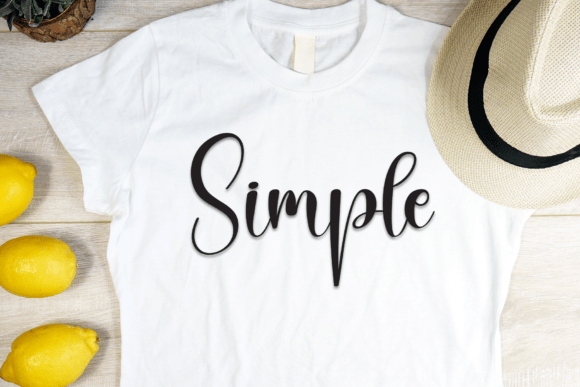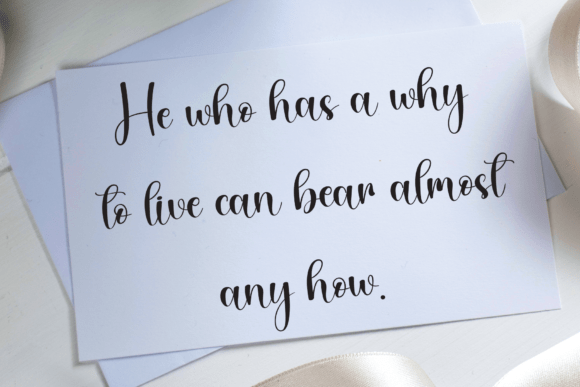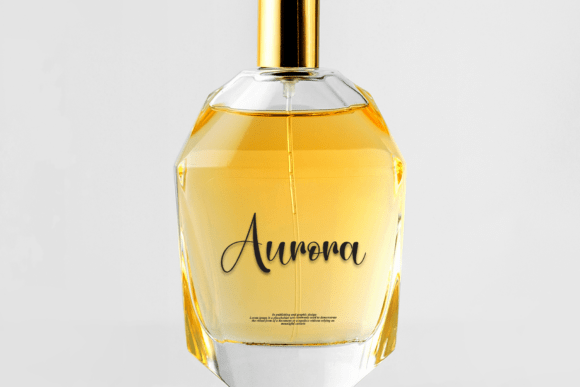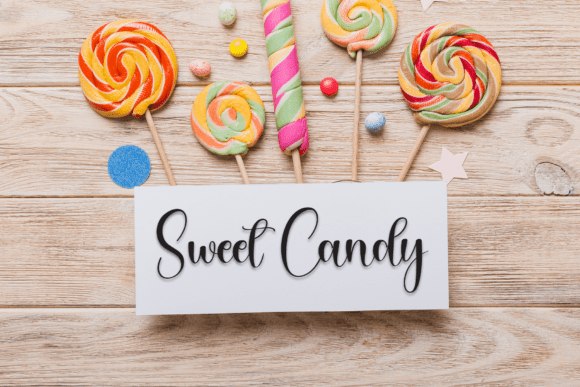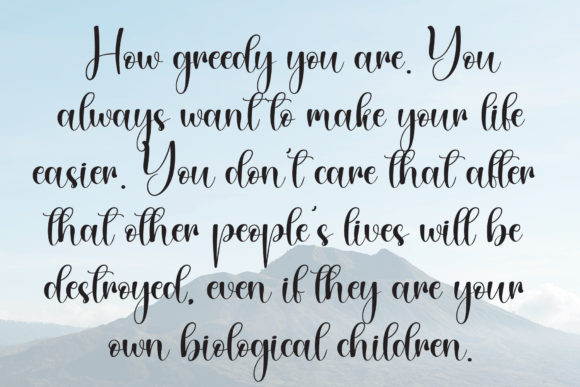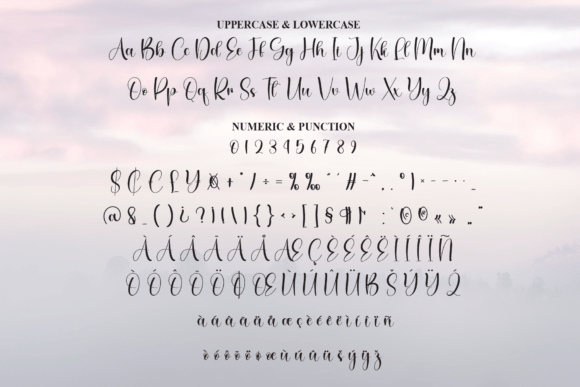
Discover the Enchanting Font: Elevate Your Designs with Elegance and Playfulness
Are you searching for a font that can add a touch of sophistication and whimsy to your designs? Look no further than the Enchanting Font, a stylish handwritten script font that seamlessly blends modern elegance with a playful touch. This versatile typeface is perfect for designers and crafters looking to bring a personal feel to their projects, whether it’s a logo, packaging, invitation, or any other creative endeavor.
The Characteristics of Enchanting Font
The Enchanting Font boasts fluid strokes and charming curves that give it a unique and captivating appearance. Its modern elegance is balanced by a playful touch, making it an ideal choice for a wide range of design applications. The font’s smooth lines and rounded edges create a sense of warmth and approachability, while its sophisticated style ensures that it remains suitable for more formal projects.
One of the key benefits of the Enchanting Font is its versatility. Its elegant and playful style makes it perfect for a variety of design applications, including:
- Logos: Create a lasting impression with a custom logo that showcases your brand’s personality and style.
- Packaging: Add a touch of sophistication and whimsy to your product packaging and make it stand out on store shelves.
- Invitations: Create beautiful and elegant invitations for weddings, parties, and other special events.
- Signage: Use the Enchanting Font to create eye-catching signs and displays that grab attention and leave a lasting impression.
Why Choose the Enchanting Font?
So why choose the Enchanting Font over other typefaces? Here are just a few reasons:
- Unique and Captivating: The Enchanting Font’s fluid strokes and charming curves make it a unique and captivating addition to any design.
- Versatile: Its elegant and playful style makes it perfect for a wide range of design applications.
- Easy to Read: The font’s smooth lines and rounded edges make it easy to read, even at small sizes.
- Customizable: The Enchanting Font can be easily customized to fit your brand’s style and personality.
Tips for Using the Enchanting Font
Here are a few tips for getting the most out of the Enchanting Font:
- Pair it with a Sans-Serif Font: Pair the Enchanting Font with a sans-serif font for a modern and sophisticated look.
- Use it as a Header Font: Use the Enchanting Font as a header font to add a touch of elegance and whimsy to your designs.
In conclusion, the Enchanting Font is a stylish and versatile typeface that can add a touch of elegance and whimsy to any design. Its fluid strokes and charming curves make it a unique and captivating addition to any project, while its modern elegance and playful touch ensure that it remains suitable for a wide range of design applications. Whether you’re a designer, crafter, or DIY enthusiast, the Enchanting Font is sure to become a favorite in your collection.